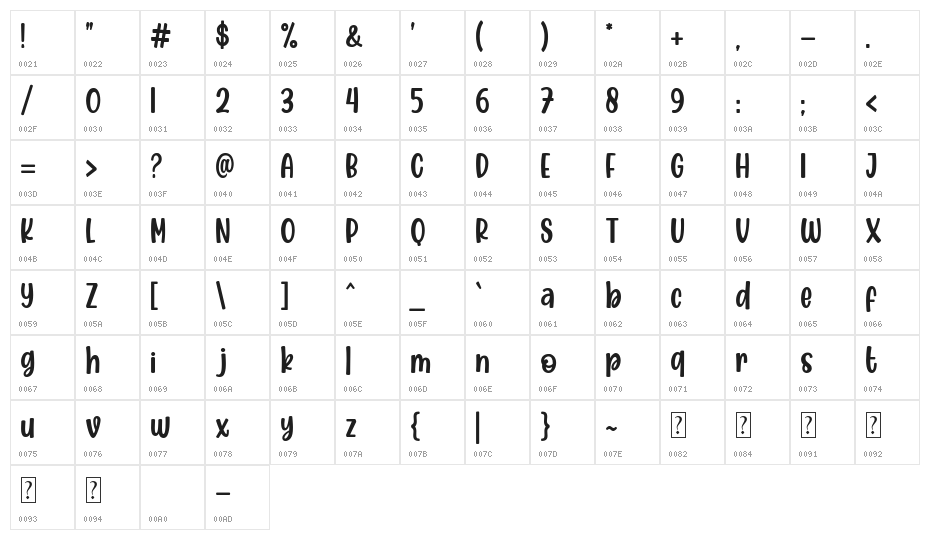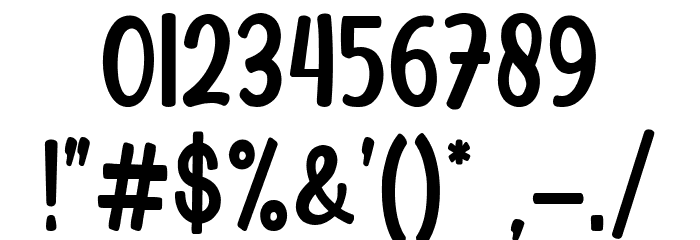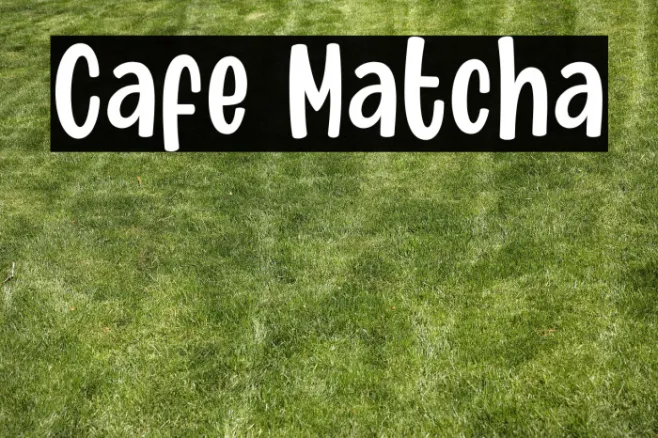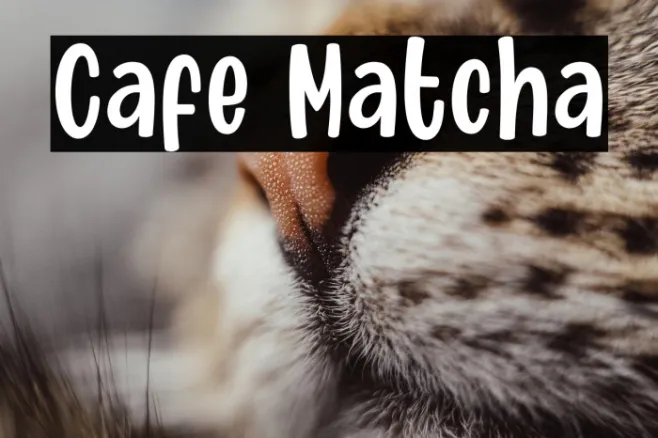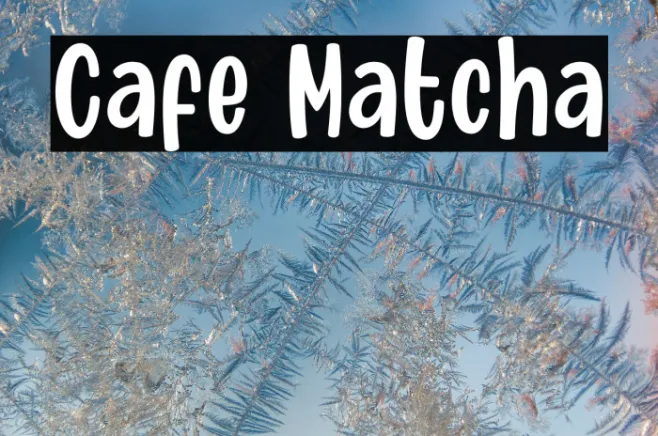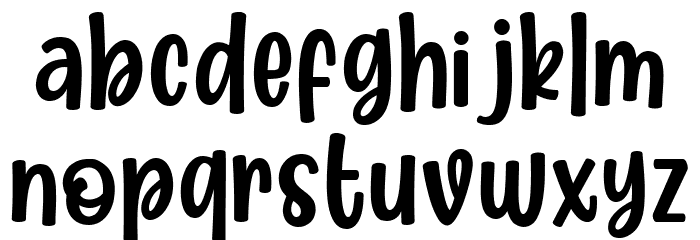
Cafe Matcha Font
Cafe Matcha Description
This playful and casual font features rounded, bold characters with a handwritten style. The uppercase and lowercase letters are consistent in their rounded forms, giving a friendly and approachable appearance. The numbers and special characters maintain the same playful aesthetic, making them suitable for informal and creative projects. The strokes are uniform, with medium contrast, adding to the font's readability while maintaining its whimsical charm. This font is ideal for projects that require a personal touch, such as invitations, greeting cards, or branding for casual and fun businesses.
| Overall Style | Casual, Playful |
| Use Case | Headlines, Logos, Invitations |
| Proposed Projects | Ideal for invitations, greeting cards, casual branding, and creative projects. |